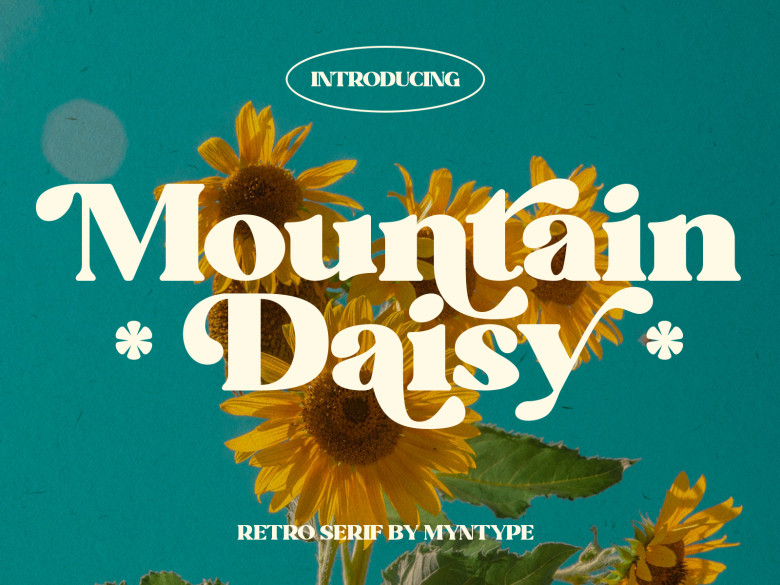
Mountain Daisy Font
Mountain Daisy is a retro serif typeface which pays homage to styles in early to mid-20th-century typography. Featuring decorative uppercase letters, lowercase letters and ligatures which add character and individuality, Mountain Daisy makes the ideal typeface choice for logos, titles packaging headings or any creative idea that needs visual impact.
Mountain Daisy Serif Font